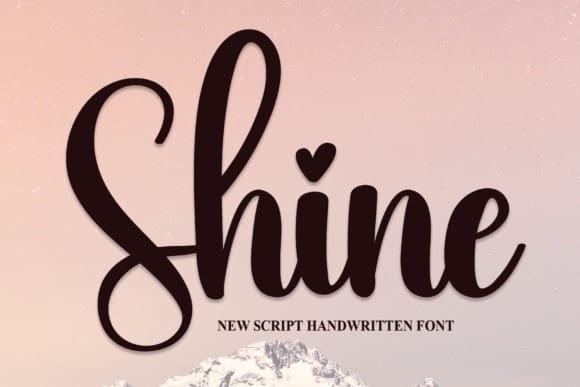
Shine Script Font
Shine Script Font, perfect for wall displays, wedding invitations, social media post logos, advertisements, product packaging, product designs, labels, photography, watermarks, invitations, stationery, and any project that requires a taste for handwriting.